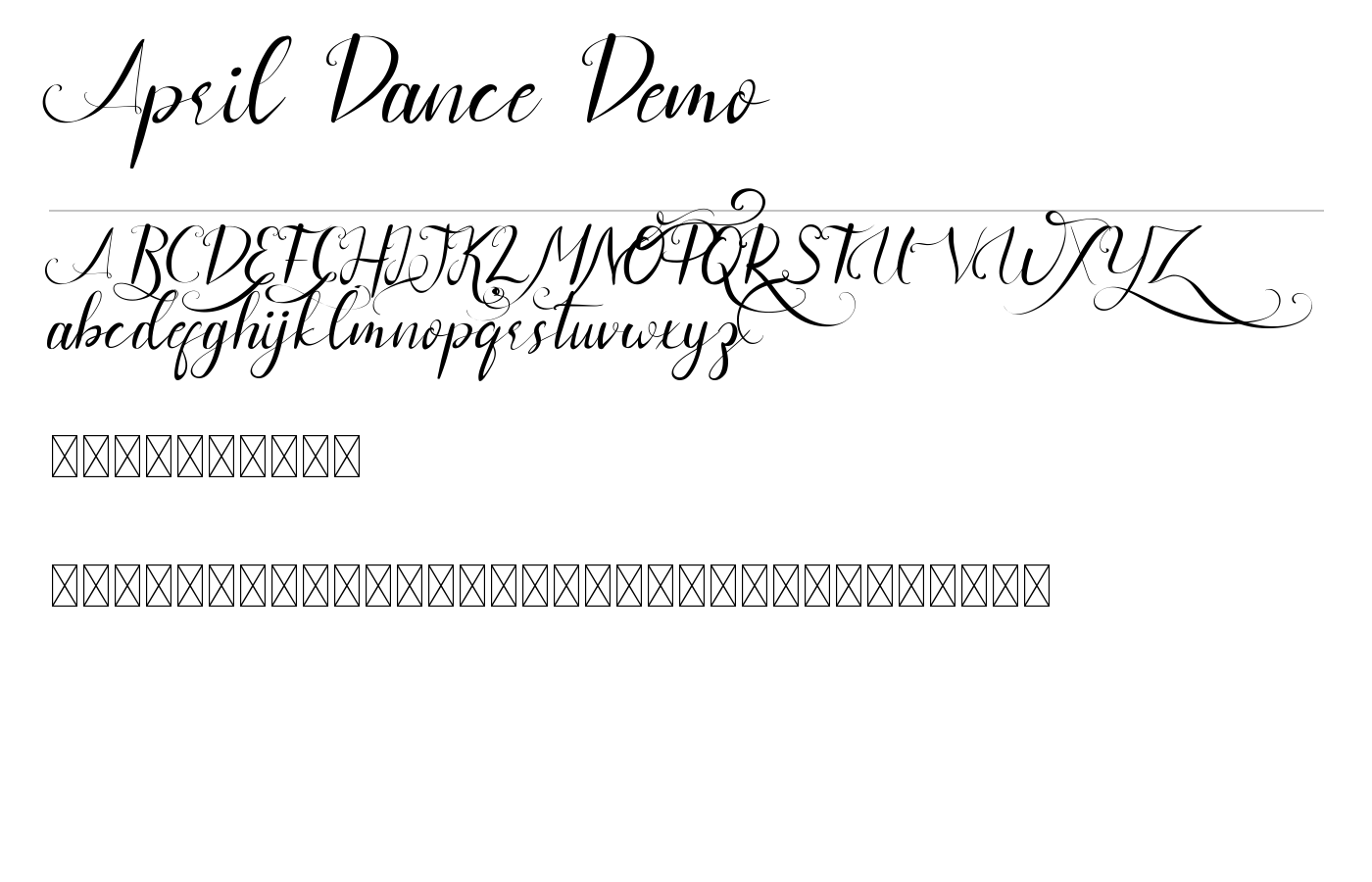
April Dance Demo is an elegant script font characterized by its flowing, delicate strokes and decorative flourishes, giving it a refined and graceful appearance. Its high-contrast, thin and thick lines combined with expressive swashes make it ideal for sophisticated branding, wedding invitations, and luxury packaging where a romantic, stylish feel is desired. This font works best in larger sizes, such as headlines or logos, where its intricate details can shine without compromising readability.
April Dance Demo Font
About April Dance Demo Font